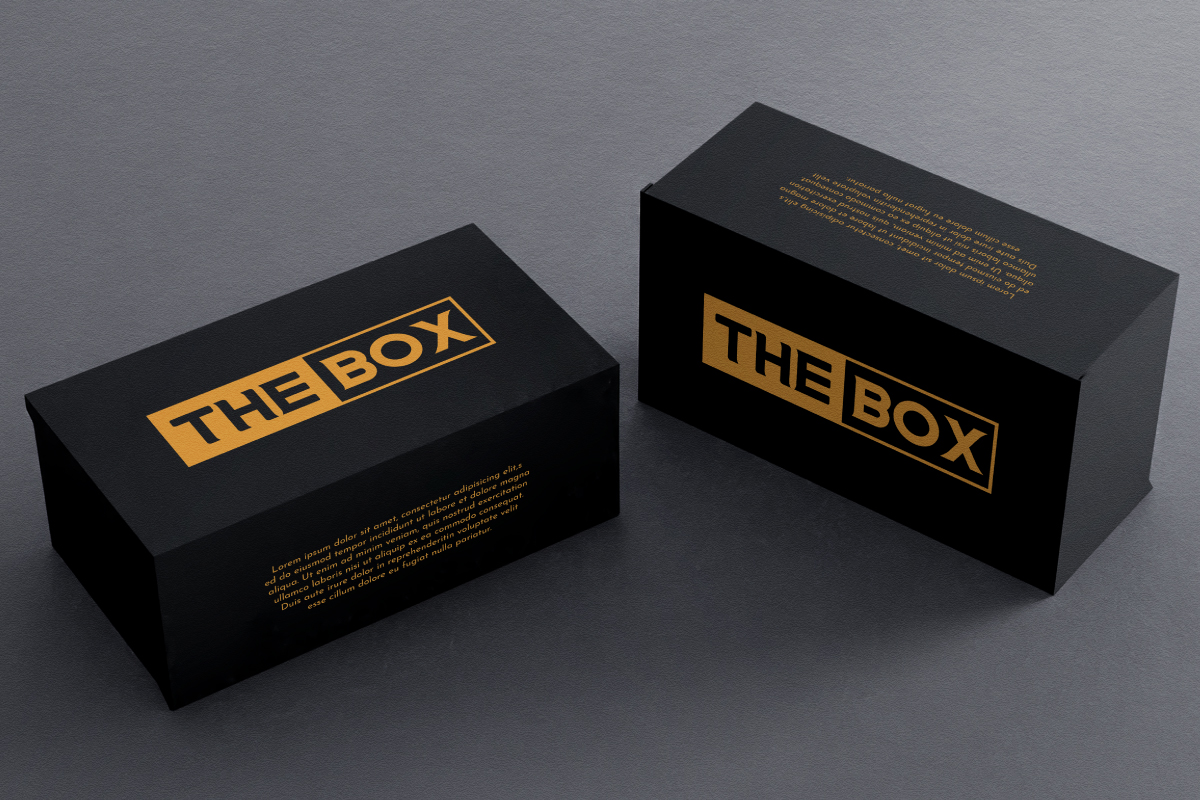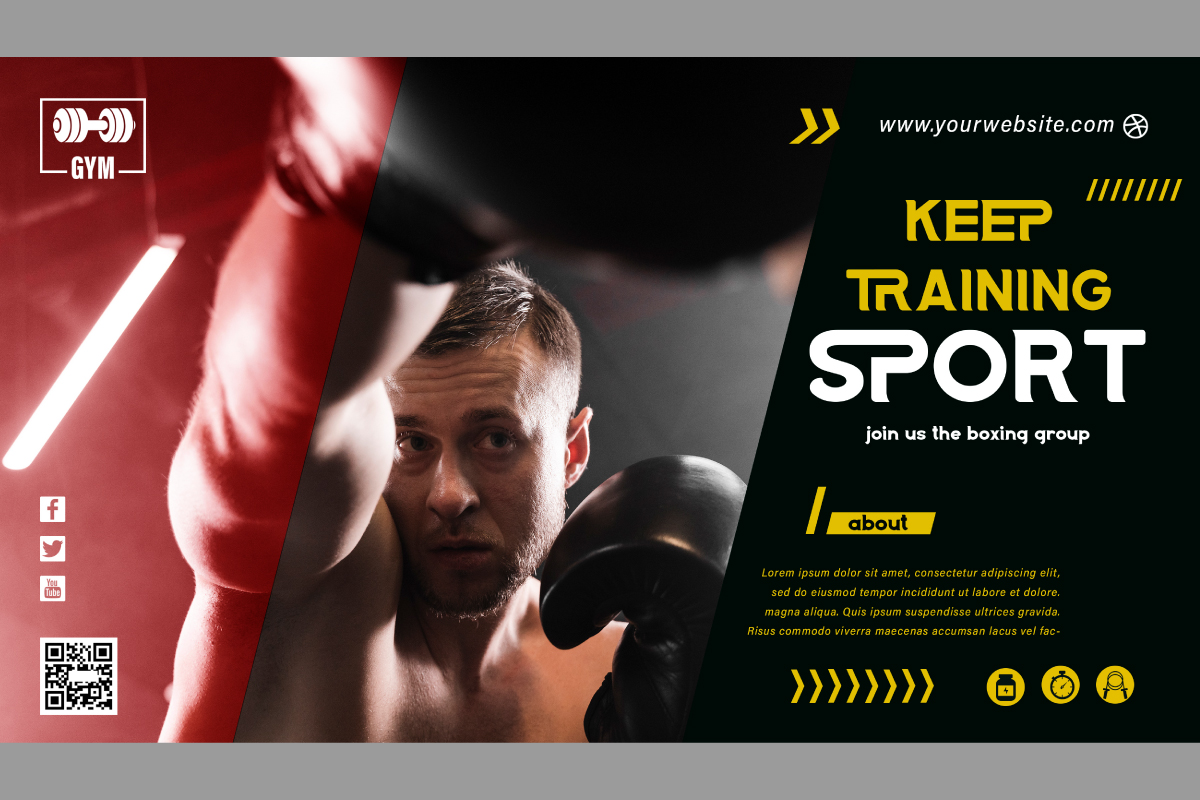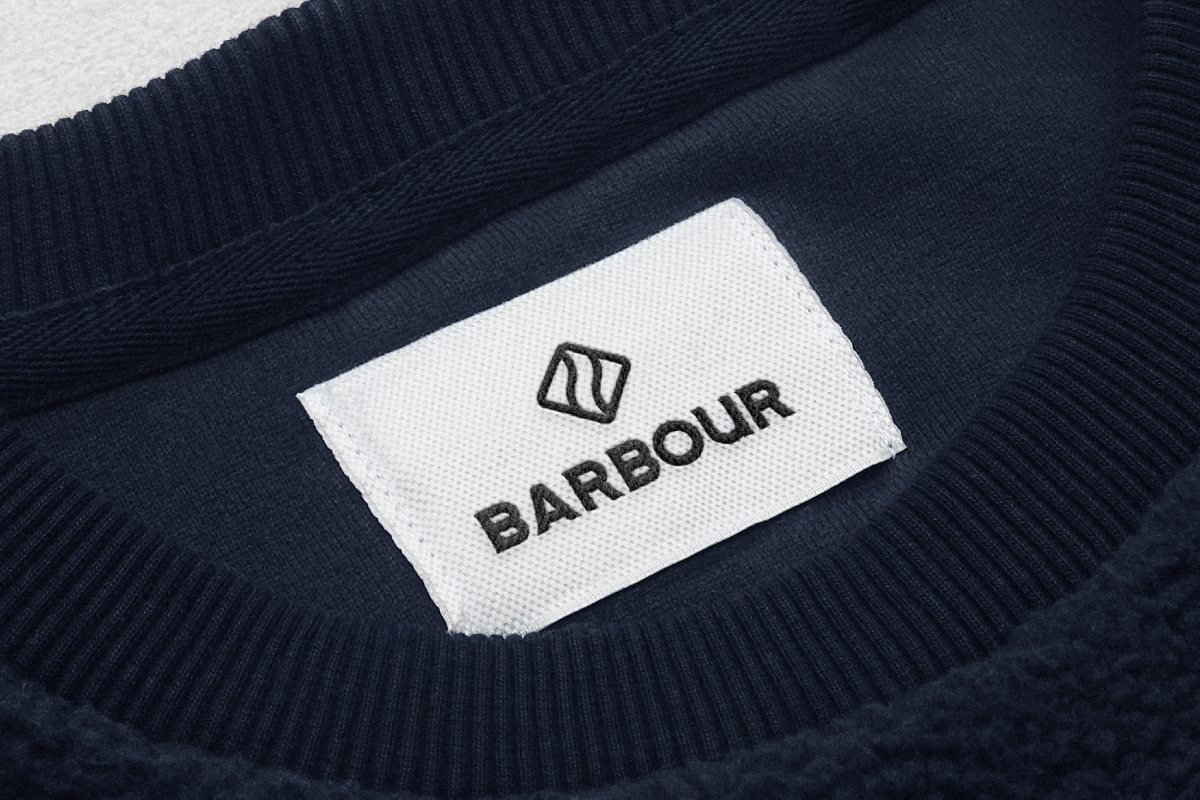
Astrojets Font
Astrojets Sans Serif Font
This font will be great for any projects (require extended license) including : branding, logo, stationery, business card, signage, flyer, brochure etc. It will be great for many business industries : games, techno, startup, web developement, automotive, crypto, etc